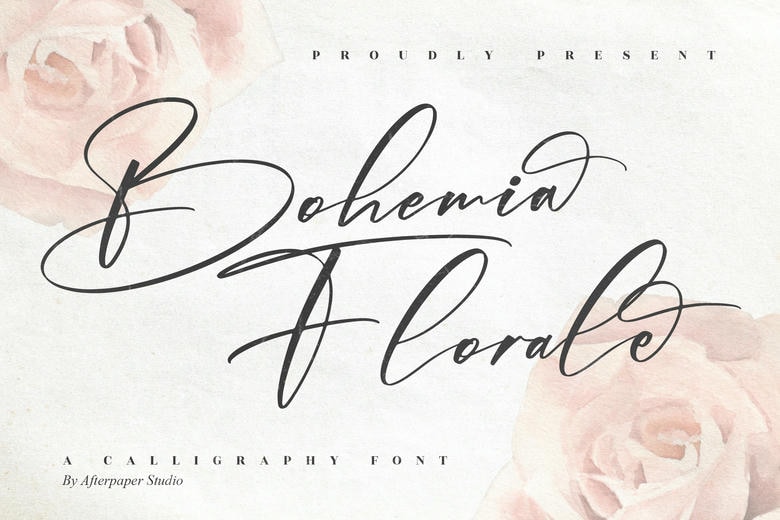
Bohemia Florale Font
Bohemia Florale is a stylish and elegant script font. It works well for branding projects like logos, t-shirts, and creative products. This font stands out in many different settings.
Bohemia Florale Calligraphy Script Font